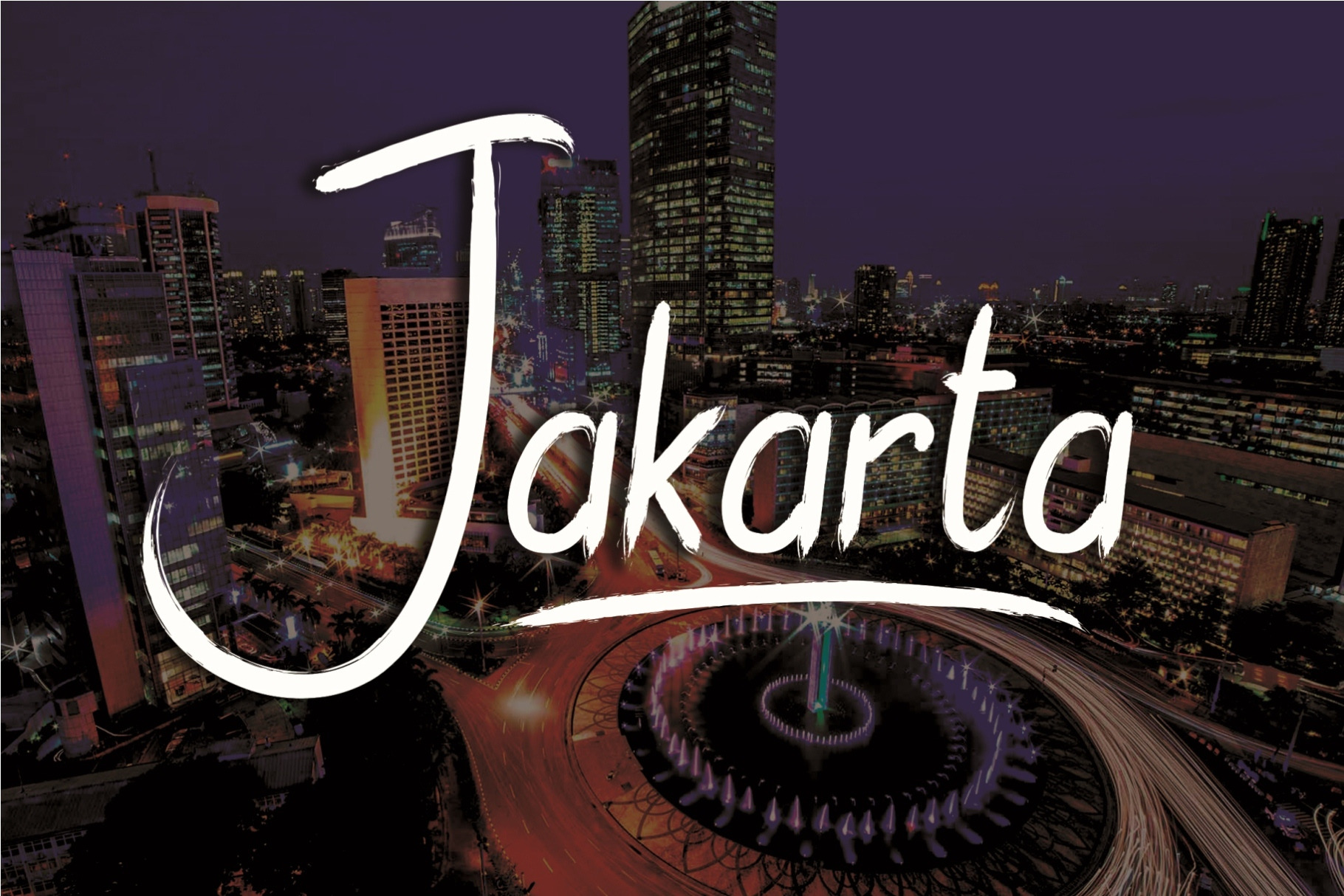
Jakarta Brush Font
Jakarta is handmade authentic font brush with stylish street lifestyle and looks like extreme sport style usage. Best match for logos, header, titles, prints, apparel & other creative process possibilities.